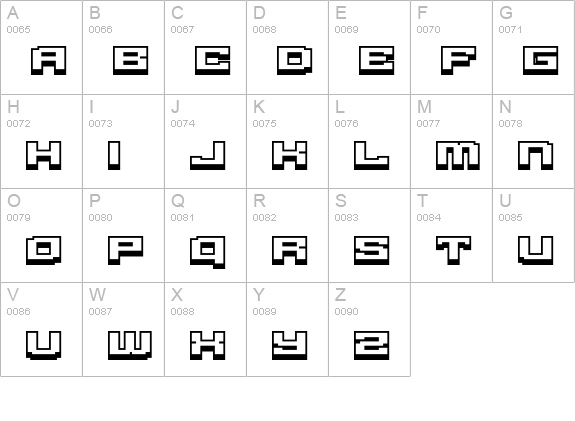
Gargantua BTN Shadow Font Details
Gargantua BTN Shadow font is a striking display typeface that exudes a sense of boldness and modernity. With its sharp edges and unique shadow effect, this font is perfect for making a statement in headlines, logos, posters, and more. Its sleek and stylish design will add a touch of sophistication to any project. The best part is that Gargantua BTN Shadow font is available for free download at FontsMarket.com. This means you can enjoy using this eye-catching font in your designs without any cost. Don't miss out on the opportunity to enhance your creative projects with this impressive typeface. Download Gargantua BTN Shadow font today and elevate your design game to new heights.